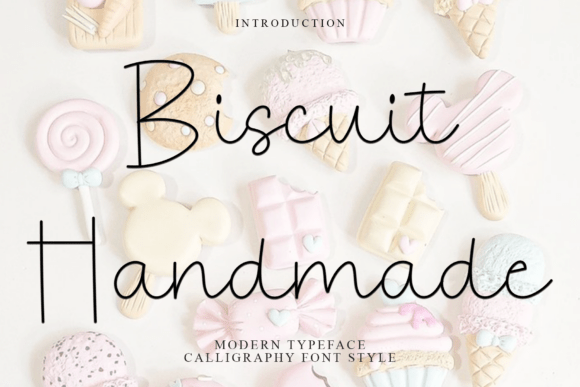
The Biscuit Handmade Font: A Game-Changer for Designers and Crafters
I’ll never forget the time I was working on a project for a client who wanted a custom font to match their brand’s playful and whimsical vibe. I spent hours scouring the internet for the perfect font, but nothing seemed quite right. That was until I stumbled upon the Biscuit Handmade font. Its unique, soft touch and distinctive strokes immediately caught my eye, and I knew I had found the one. In this article, I’ll share my experience with the Biscuit Handmade font, its features, and how to make the most of it in your design projects.
- ✨ The Biscuit Handmade font has a beautiful, eye-catching design that’s perfect for a wide range of creative projects.
- ✅ Its unique strokes and soft touch give it a special character that’s both meaningful and versatile.
- 🎉 The font comes with a variety of characters, making it ideal for design projects, crafts, and other creative works.
While the Biscuit Handmade font is amazing, there are a few things to keep in mind:
- 🤔 Some users may find that the font can be a bit tricky to read at very small sizes.
- ⚠️ The font may not be suitable for very formal or professional projects, as it has a more playful and whimsical feel.
The Biscuit Handmade font was designed with the intention of creating a unique and eye-catching font that’s perfect for creative projects. The designer wanted to create a font that would stand out from the crowd and offer a fresh, modern take on traditional typography. The result is a font that’s both playful and elegant, making it perfect for a wide range of design applications.
| What is the Biscuit Handmade font? | The Biscuit Handmade font is a beautiful and eye-catching font designed with a soft, unique touch. |